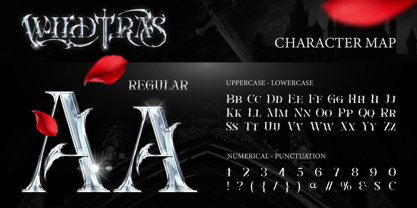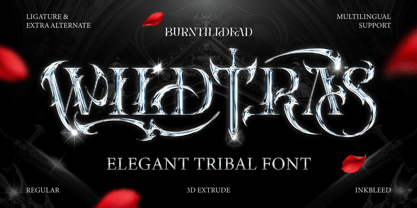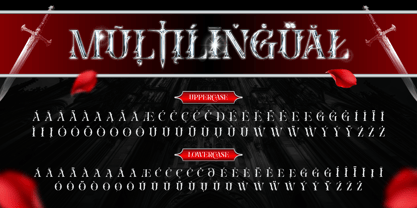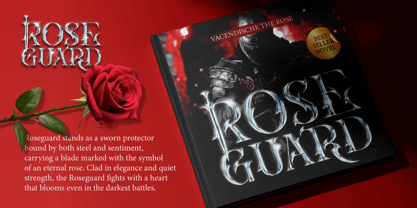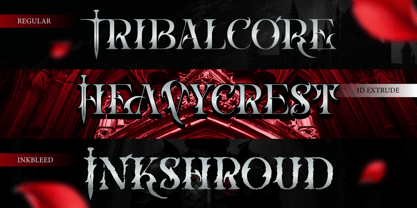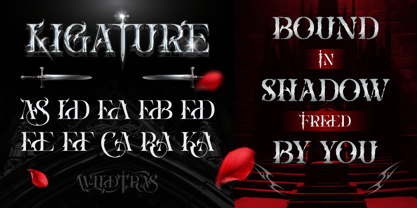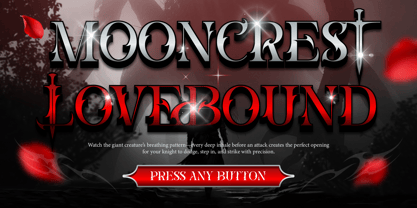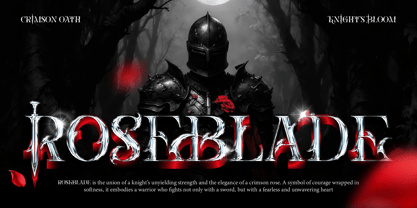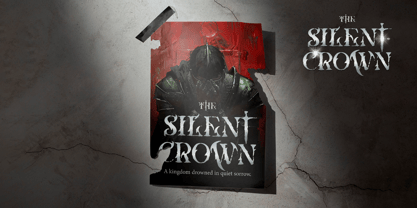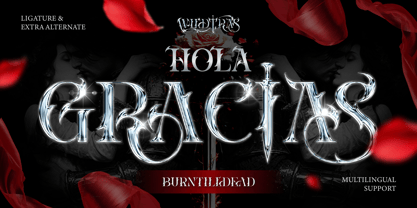
Wildtras
La familia tipográfica Wildtras fue diseñada por Eric Kurniawan y publicada por Burntilldead. Wildtras contiene 3 estilos y opciones de paquete familiar. Más información sobre esta familia
Wildtras is an elegant tribal display font with a dark and cinematic feel. It combines sharp tribal shapes with refined serif details, creating a strong and dramatic character. This font includes multiple styles such as Regular, 3D Extrude, and Inkbleed, along with alternates, ligatures, and multilingual support. Easy to use and flexible for many design needs. Perfect for logos, game titles, posters, book covers, branding, and fantasy-themed designs. Wildtras brings power, mystery, and elegance into your typography. Features: A - Z set (Uppercase & Lowercase), number, punctuation, alternates, ligatures, multilingual